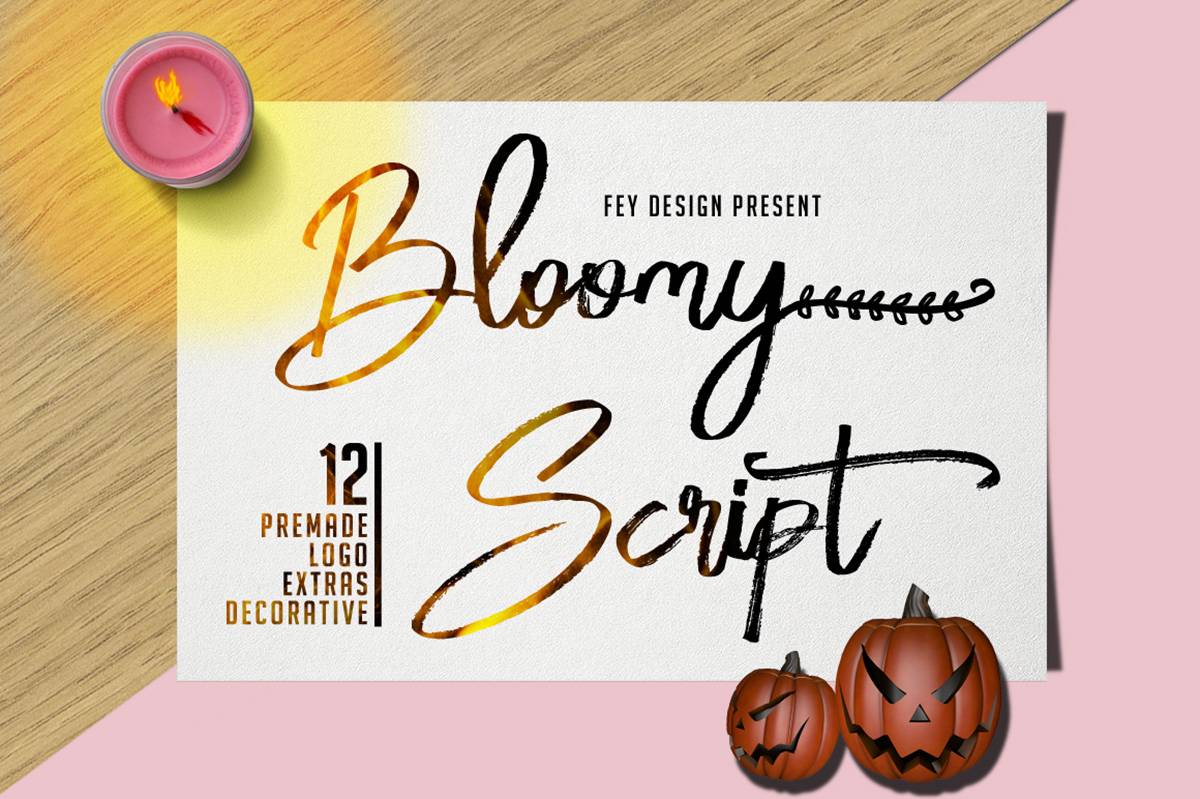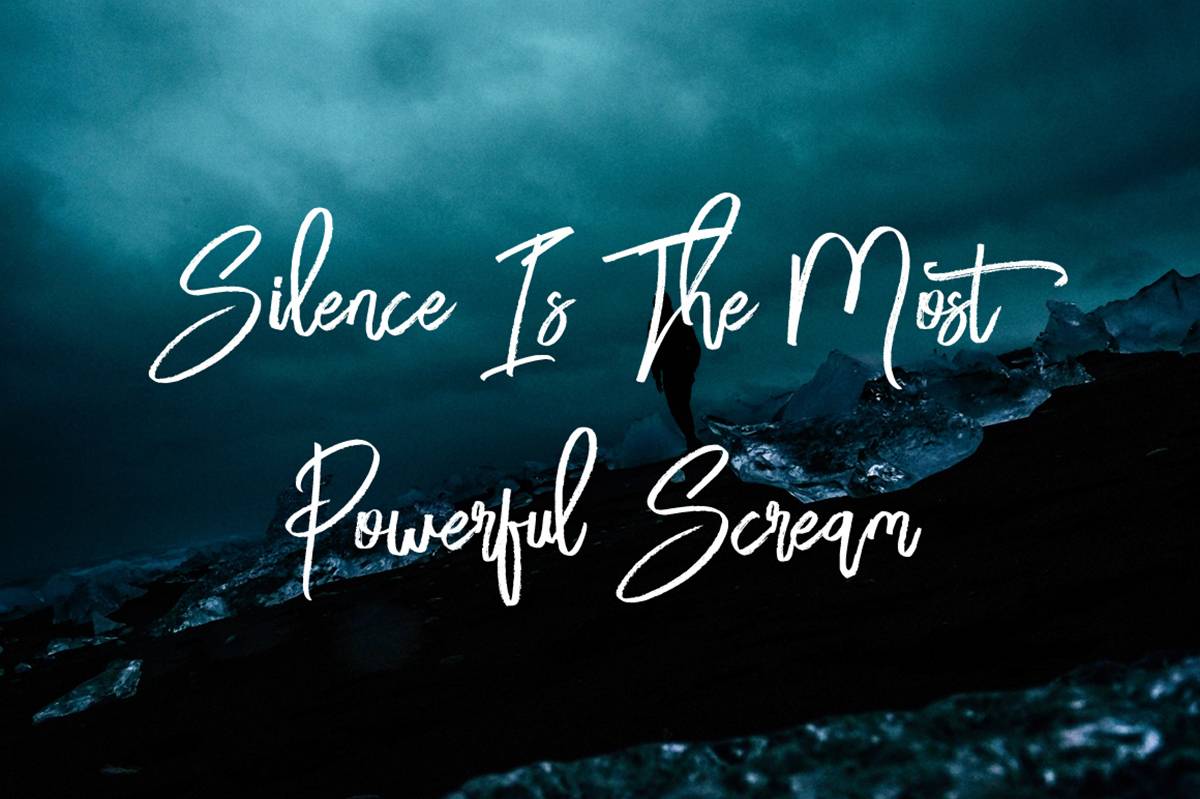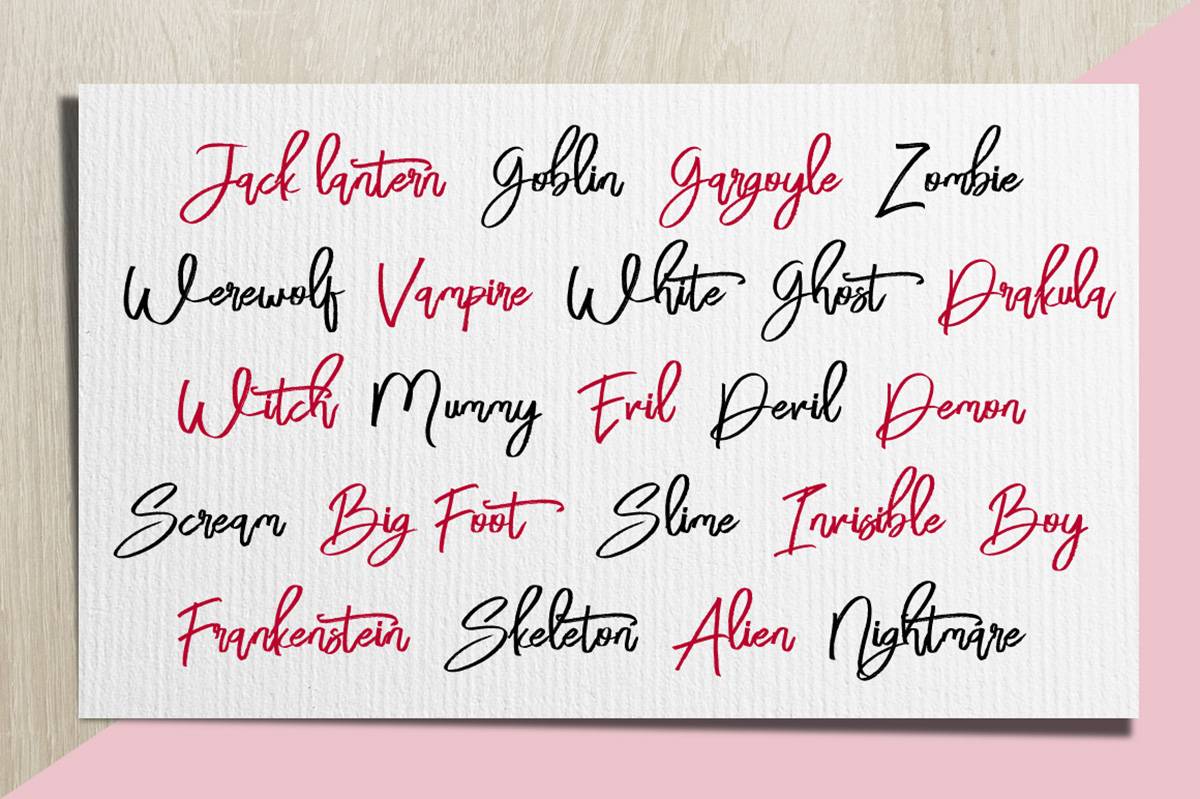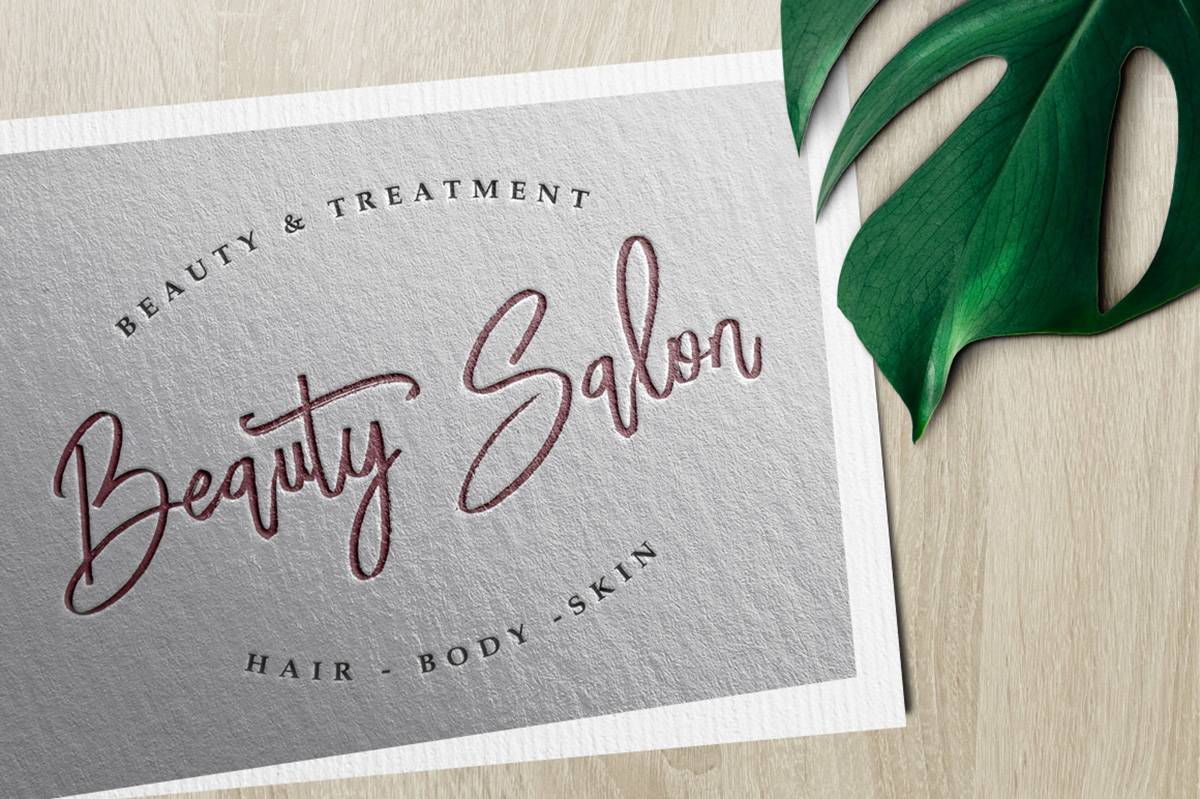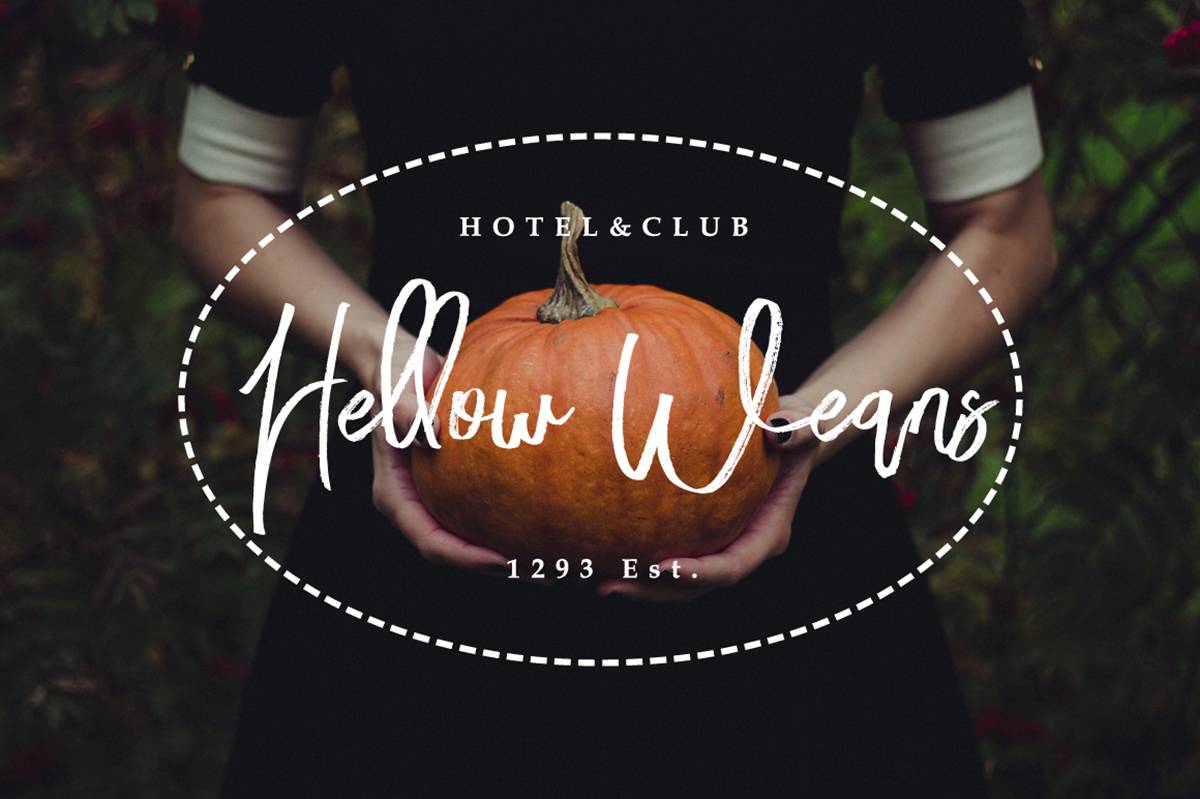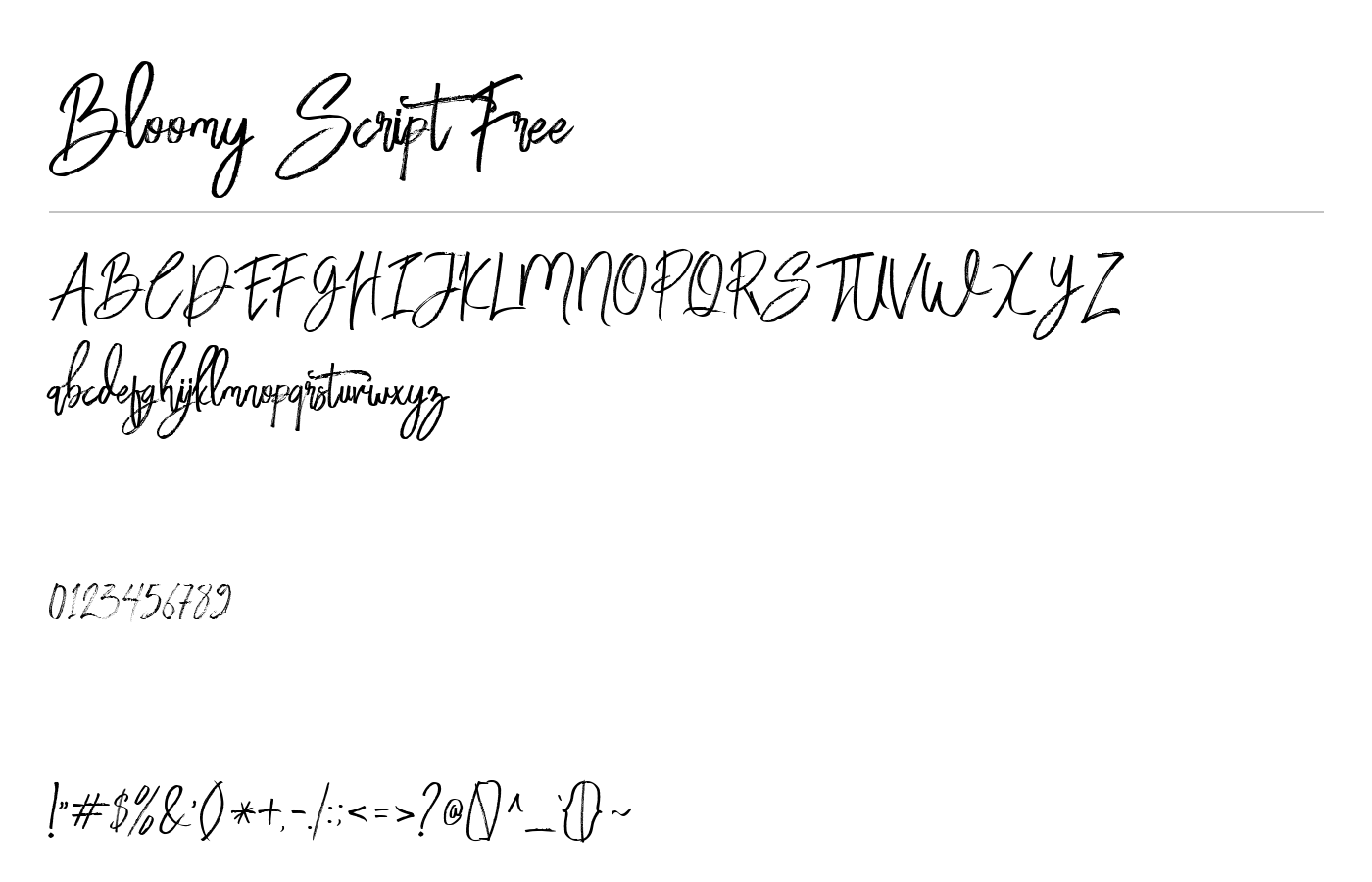
Bloomy Script Font is an elegant, hand-drawn script featuring a casual and lively style with thin, textured strokes that mimic natural handwriting. Its tall, slender letterforms with varied connecting strokes create a fresh, artistic feel, perfect for adding a personal and creative touch to invitations, branding, and fashion-related designs. This font works best in projects that want to convey warmth, creativity, and a sense of modern sophistication.
Bloomy Script Font
About Bloomy Script Font